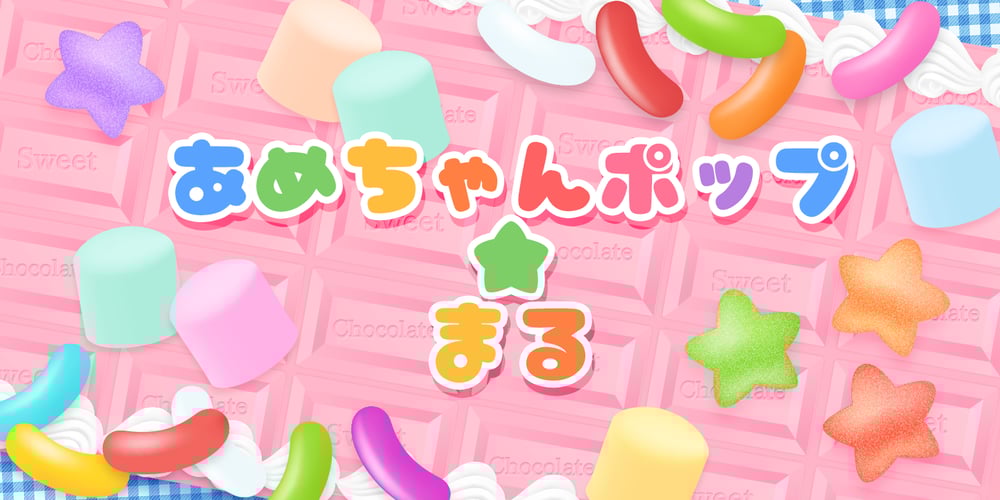
Ame Chan Pop Maru Font Family was designed by Norio Kanisawa and published by Norio Kanisawa. Ame Chan Pop Maru contains 1 styles and family package options. I make this font imaging rounded candy, this theme is cute and round but you can use scenes less often. Because the circle is interrupted in places such as voiced points and parts of kanji(chinese characters), it may be fun to look for it. It corresponds to Hiragana · Katakana · Alphabet · Numerals · Symbols · Kanji(chinese characters). You can also write vertically. You can use it easily, because it contains JIS first · second level, and IBM extended Kanji(about 6700chinese characters). This font is bold, recommended to use it for headlines and prominent places. It might be good for shop pop etc. Because it is soft, pop and cheerful impression, I recommend it for contents for children. About the name, I like Osaka, and I thought “This font’s name that is loved by everyone”, and since the sound is also cute, I attached the word “Amechan”. I heard they called candy as “Amechan” in Osaka, and some madam in Osaka always have candy, and give it to people. I think this font gives happy feeling to you and people look it, like madam in Osaka gives “Amechan”. <「あめちゃんポップ まる」紹介文> ころころ丸っこい飴玉をイメージして、「丸くてかわいいけどシーンをあまり選ばずに使えるフォント」をテーマに作りました。 濁点や漢字の一部など、所々に丸がまぎれてますので、探してみるのも楽しいかもしれません。 ひらがな・カタカナ・アルファベット・数字・記号類・漢字に対応。縦書きもできます。 漢字はJIS第一水準・第二水準・IBM拡張漢字(約6700文字)に対応しているので、使いやすいかと思います。 太めのフォントなので、見出しや目立つ場所に使うのがオススメです。お店のポップなどにもいいかもしれません。 柔らかくポップで元気な印象なので、子供向けのコンテンツにもオススメします。 名称については、大阪が好きなのと「皆に愛されるような名前を」と思って、響きも可愛いので「あめちゃん」という単語を名前につけました。 大阪では飴のことを「あめちゃん」と言うらしく、大阪のおばちゃんの中にはいつも飴を持っている方もいるそうで、色んな人にその飴をあげるそうです。 大阪のおばちゃんが「あめちゃん」をくれる時みたいに、使ったり見てくださる方の心があったかくなるようなフォントになればいいなぁ、と思います。 <スタイルカテゴリー> ファンシー、装飾